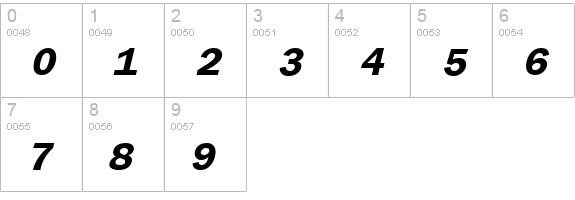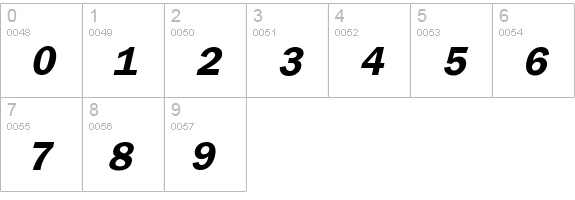
Frankfurt fed kursiv font is a beautifully crafted typeface that exudes elegance and sophistication. Its sleek and stylish italicized design adds a touch of finesse to any project or design. The fluid curves and unique characteristics of this font make it perfect for creating eye-catching headlines, logos, and branding materials. And the best part? Frankfurt fed kursiv font is available for free download at FontsMarket.com. This means you can enhance your projects with this stunning font without breaking the bank. Don't miss out on the opportunity to add a touch of class to your designs with Frankfurt fed kursiv font - download it today!